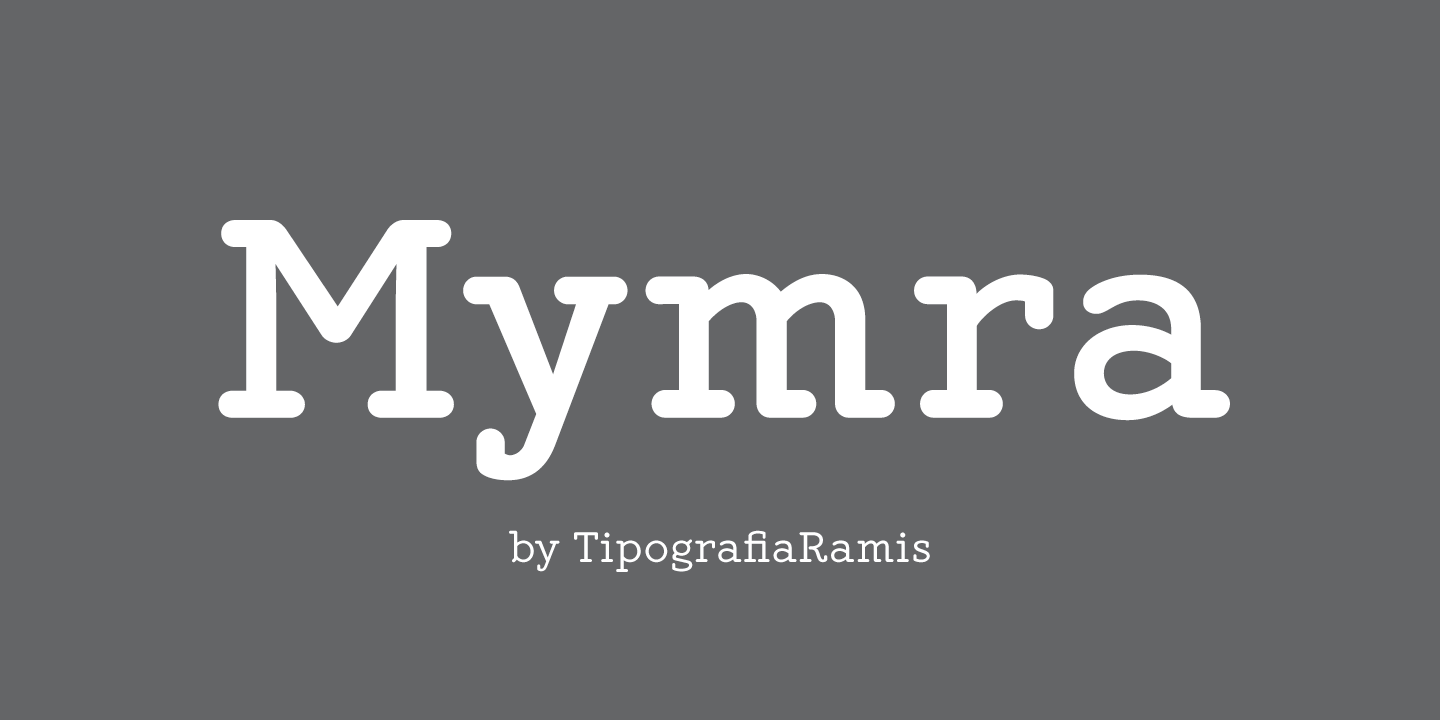
Mymra Font Free Download is a stylish, modern serif typeface that combines elegance with clarity. Perfect for editorial design, branding, logos, packaging, and any creative project that needs sophistication and readability, Mymra Font features refined letterforms that make it ideal for both display and text. Its versatile design ensures it works well across various platforms, both print and digital.
With Mymra Font Free Download, you’ll receive a complete set of uppercase letters, lowercase, numbers, and essential punctuation, offering flexibility for different design needs. Whether you're creating a sleek magazine layout, a polished logo, or high-end marketing materials, Mymra Font guarantees excellent readability while adding a classy, contemporary flair to your projects.
Add sophistication and elegance to your design projects with Mymra Font Free Download. Its timeless design makes it the perfect choice for projects that need a refined, stylish, and professional appearance.